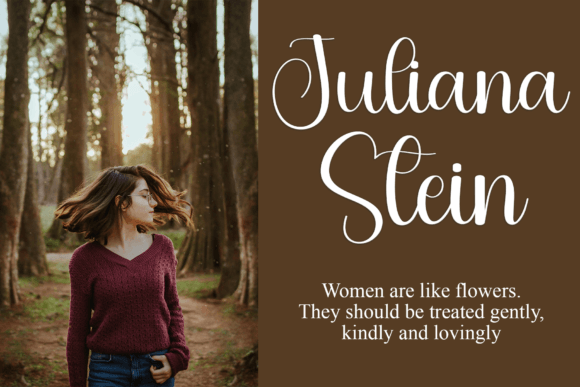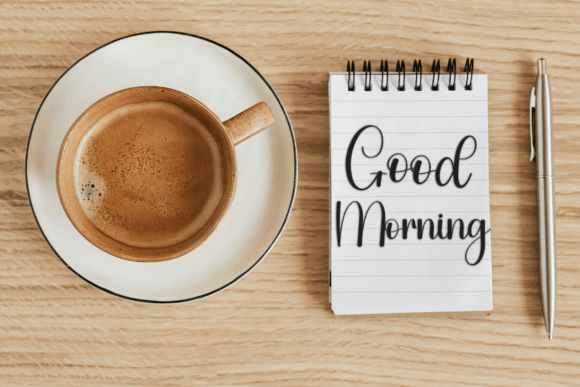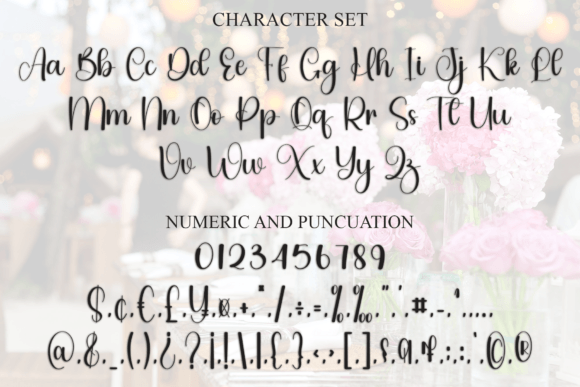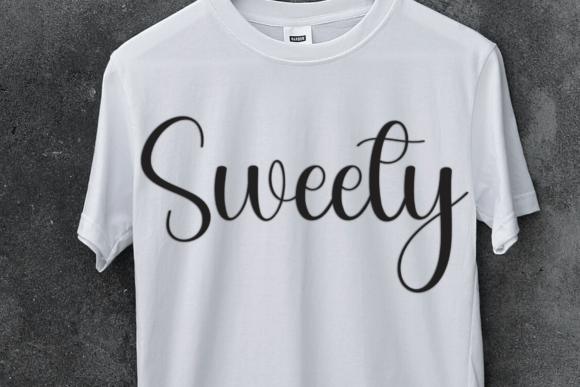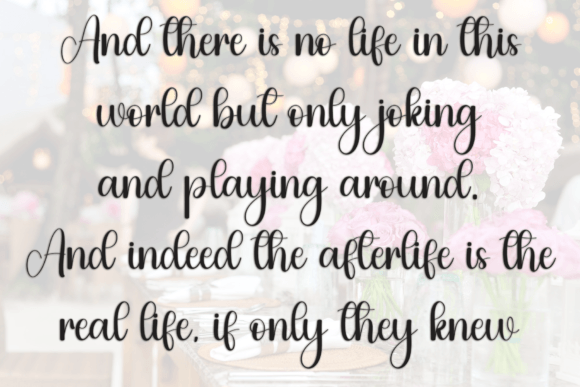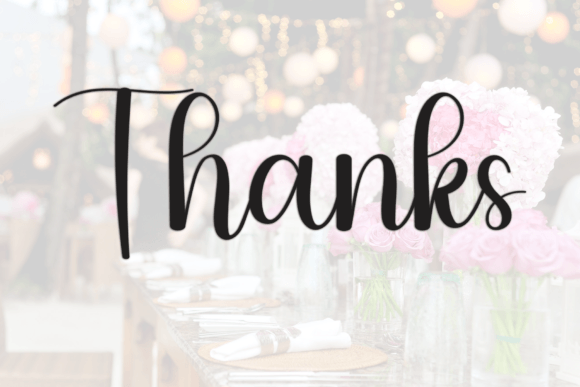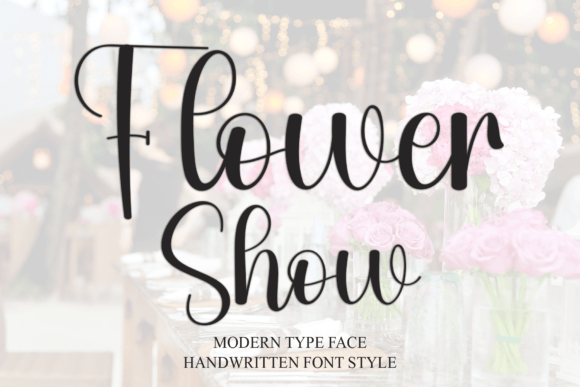
Introducing Flower Show Font: The Perfect Choice for Elegant Designs
Are you a designer or crafter looking for a font that exudes charm and elegance? Look no further than Flower Show Font. This beautiful handwritten font is perfect for adding a touch of sophistication to any design project. In this article, we’ll take a closer look at Flower Show Font and explore its many uses.
What is Flower Show Font?
Flower Show Font is a stunning handwritten font that is sure to capture the hearts of designers and crafters alike. Its elegant and charming appearance makes it perfect for a wide range of design projects, from wedding invitations and thank you cards to quotes, greeting cards, logos, and business cards.
Key Features of Flower Show Font
- Handwritten appearance: Flower Show Font has a beautiful handwritten appearance that adds a personal touch to any design.
- Elegant and charming: The font’s elegant and charming appearance makes it perfect for designs that require a touch of sophistication.
- Versatile: Flower Show Font can be used for a wide range of design projects, from wedding invitations to logos and business cards.
- Easy to read: Despite its elegant appearance, Flower Show Font is easy to read, making it perfect for designs that require a clear and concise message.
Uses of Flower Show Font
Flower Show Font is a versatile font that can be used for a wide range of design projects. Here are some of the most popular uses of this beautiful font:
- Wedding invitations: Flower Show Font is perfect for wedding invitations, adding a touch of elegance and sophistication to your special day.
- Thank you cards: The font’s charming appearance makes it perfect for thank you cards, allowing you to express your gratitude in style.
- Quotes: Flower Show Font is ideal for quotes, adding a touch of elegance to your inspirational messages.
- Greeting cards: The font’s versatility makes it perfect for greeting cards, allowing you to create beautiful and personalized messages.
- Logos: Flower Show Font can be used to create stunning logos that are sure to capture the attention of your target audience.
- Business cards: The font’s professional appearance makes it perfect for business cards, allowing you to create a lasting impression.
Tips for Using Flower Show Font
Here are some tips for using Flower Show Font in your design projects:
- Use it sparingly: While Flower Show Font is beautiful, it’s best to use it sparingly to avoid overwhelming your design.
- Pair it with other fonts: The font’s elegance makes it perfect for pairing with other fonts, allowing you to create a unique and visually appealing design.
- Experiment with colors: Flower Show Font looks stunning in a variety of colors, so don’t be afraid to experiment and find the perfect hue for your design.
Flower Show Font is a beautiful and elegant font that is perfect for designers and crafters looking to add a touch of sophistication to their design projects. Its versatility, elegance, and charming appearance make it perfect for a wide range of uses, from wedding invitations to logos and business cards. With its easy-to-read appearance and stunning handwritten look, Flower Show Font is sure to become a favorite in your design arsenal.